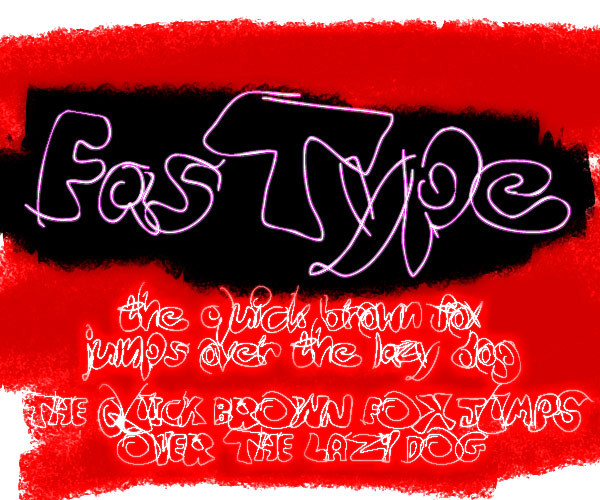
I wanted to make a quick font, one that you make and finish in one day.... This is the result - the drawing was done directly into fontlab with my mouse.I tried to make the letters overlap but hopefully they are still legible.